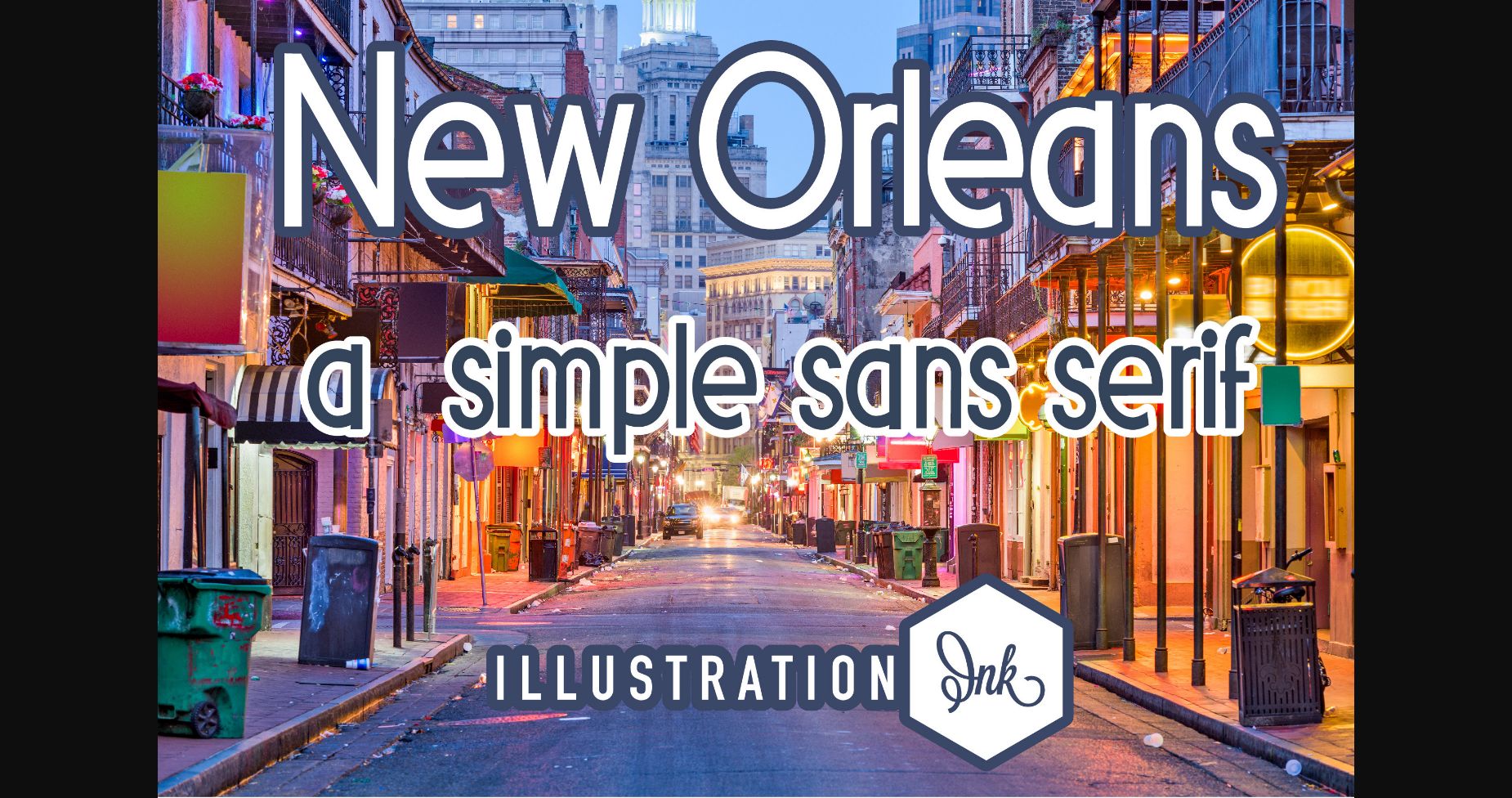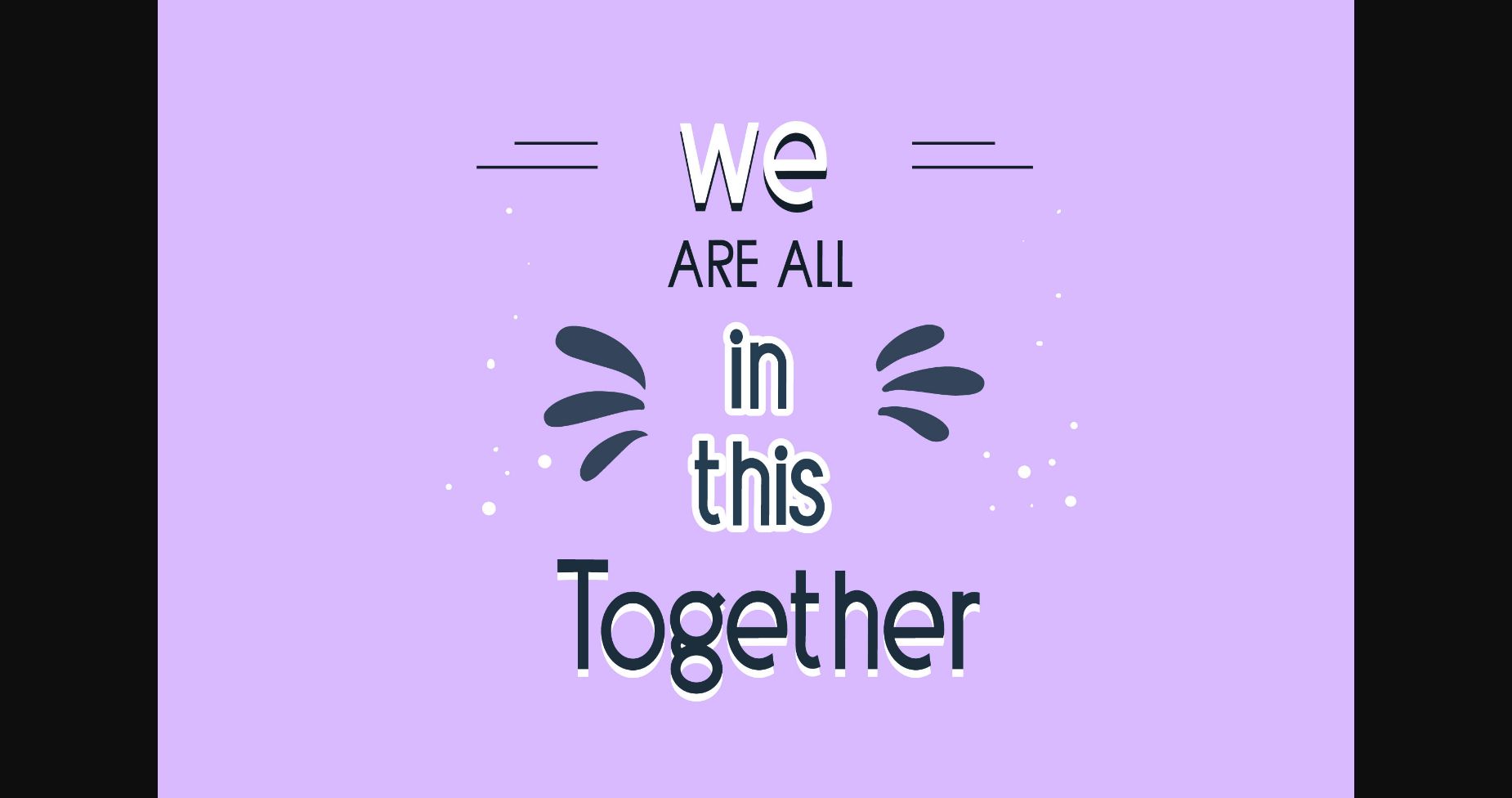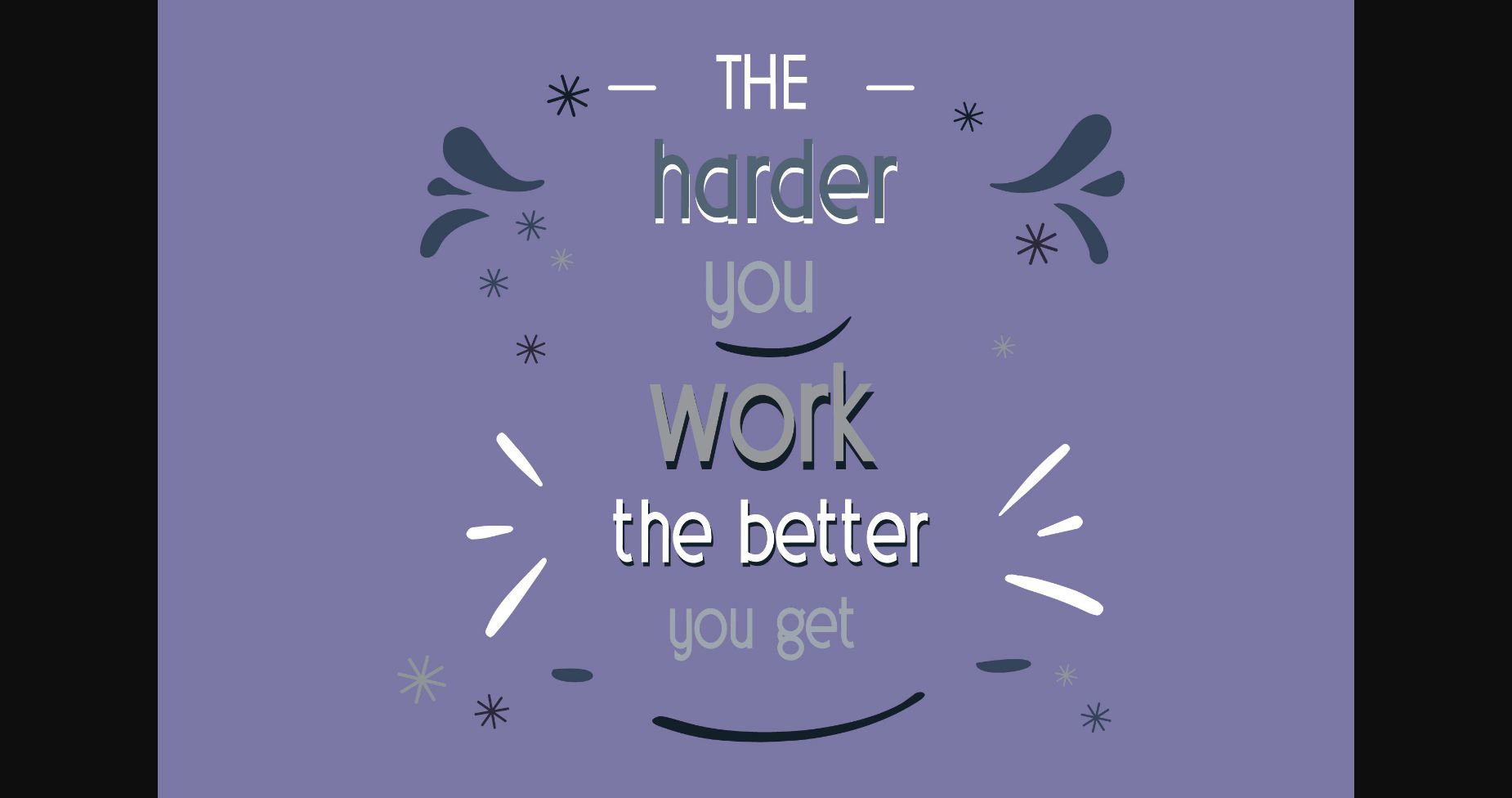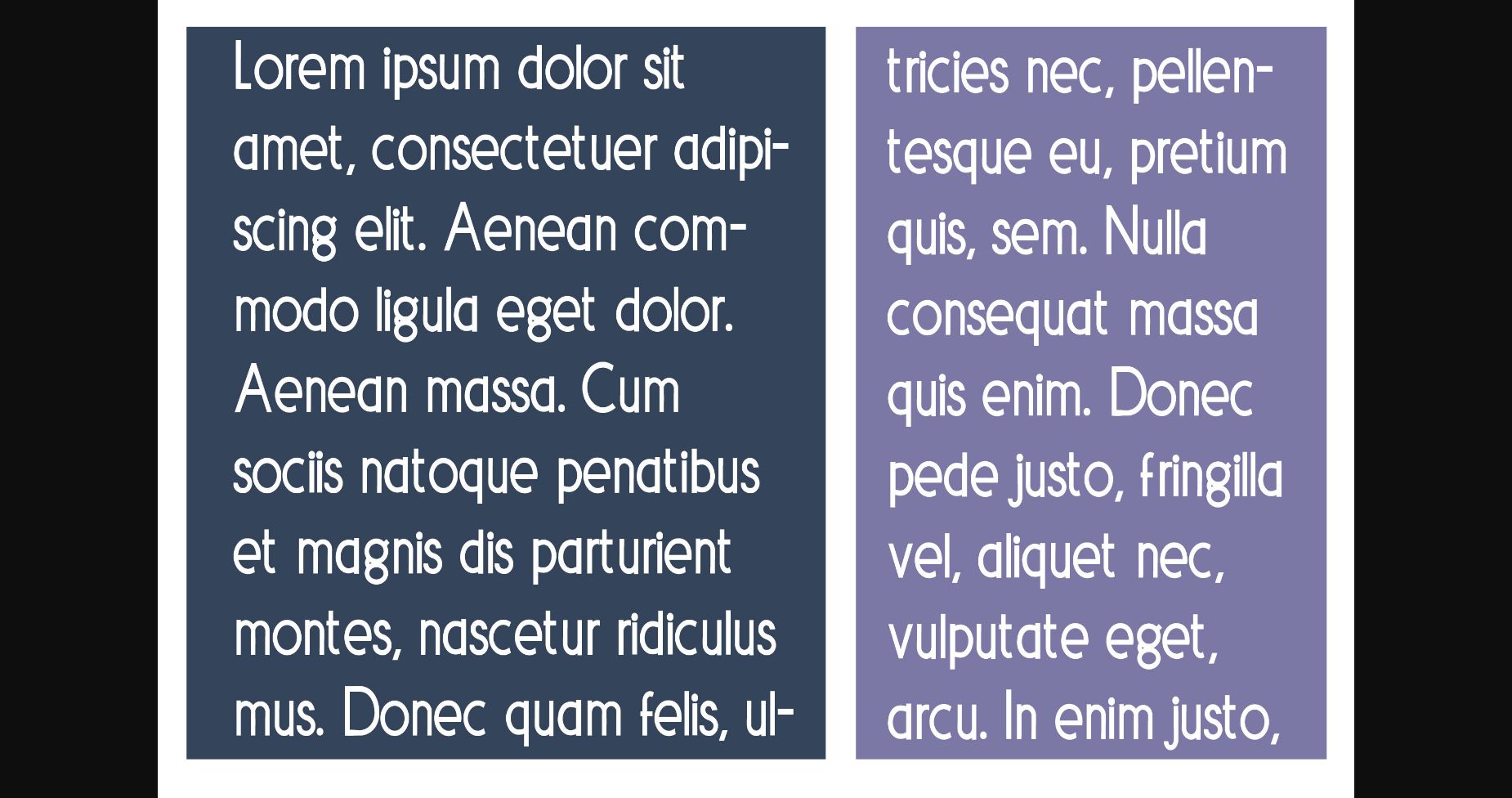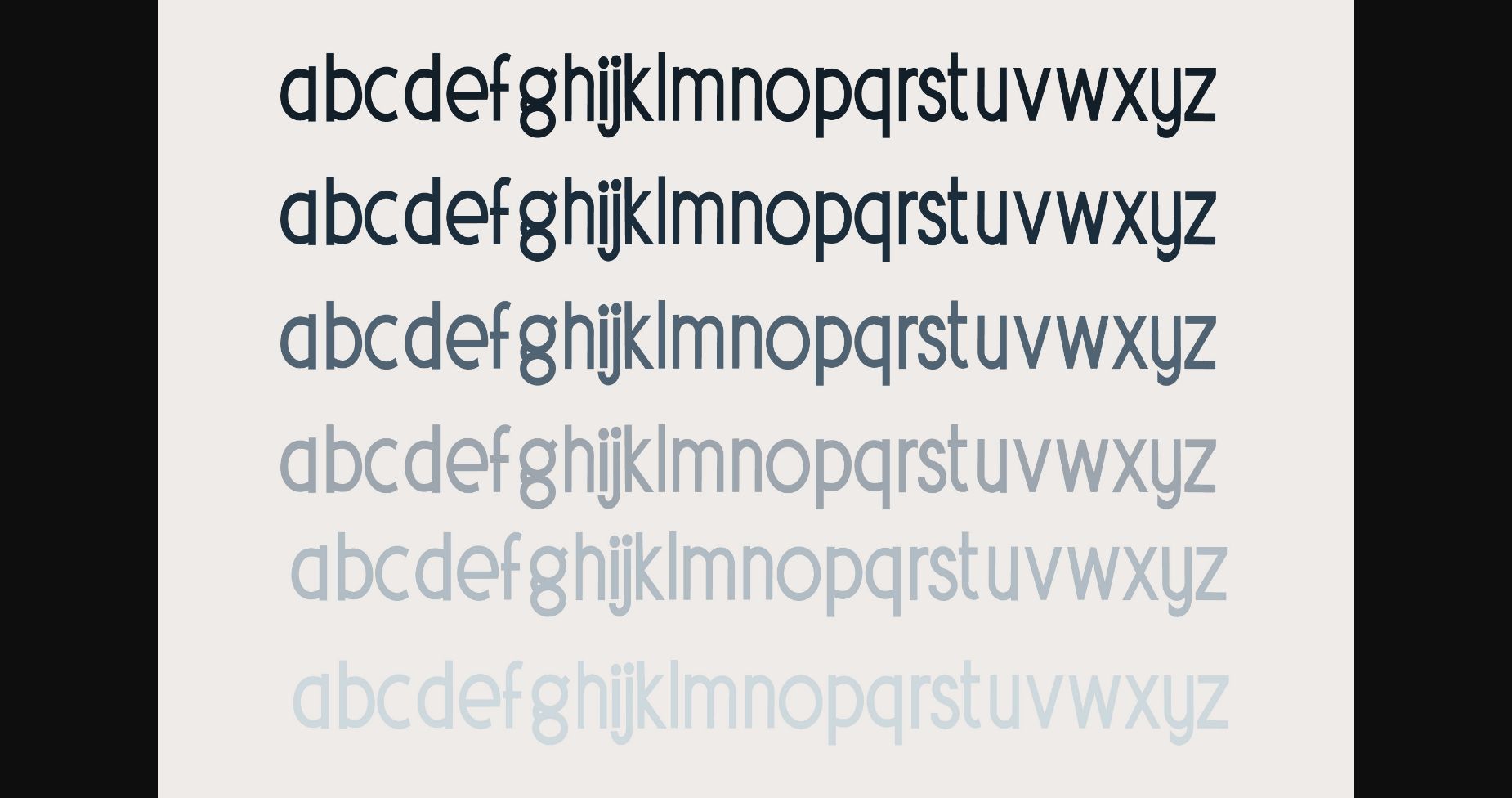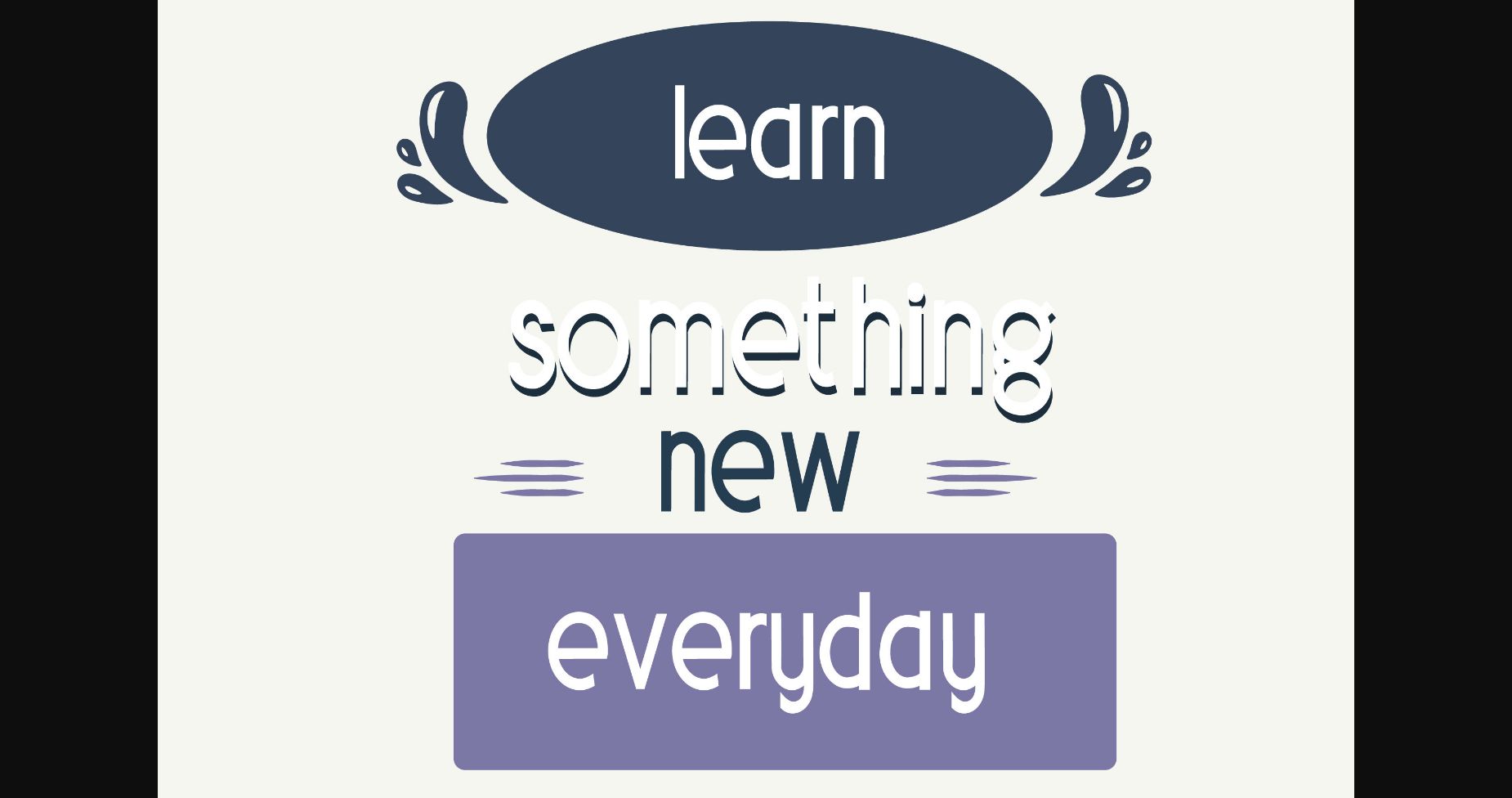
This sans serif font is narrow and modern. This minimalist and clean vibe can easily apply to your favorite designs such as book covers, magazines, social media posts, invitations, and so much more!